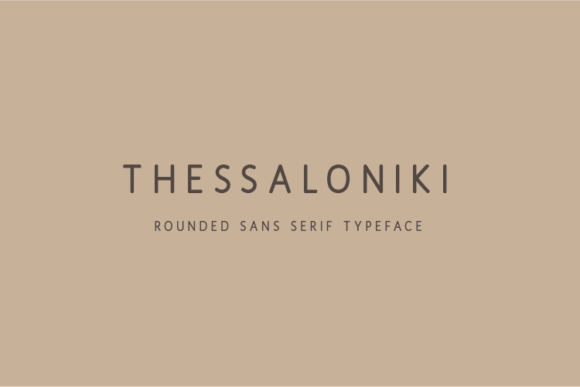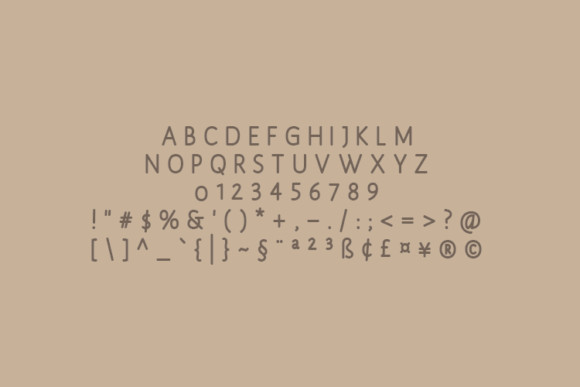
Thessaloniki Font
Thessaloniki is an elegant sans serif font. It is suitable for logos, headlines, magazines, flyers, web design, games and movie posters. Use it to add a sophisticated touch to any design idea you can think of!